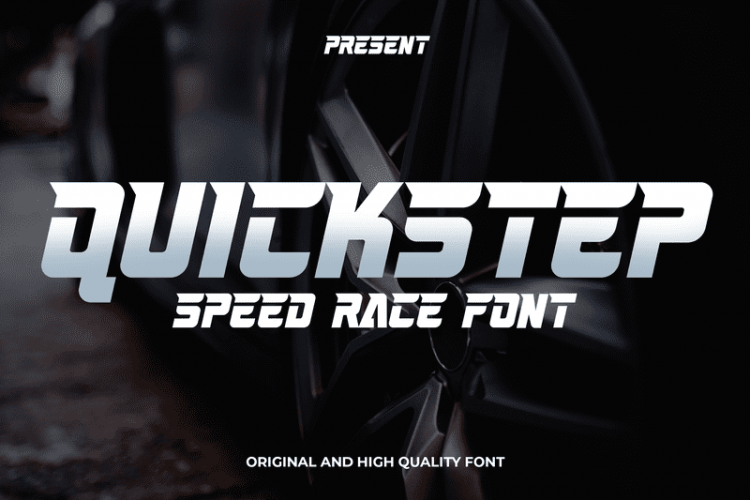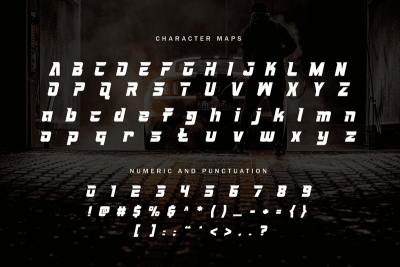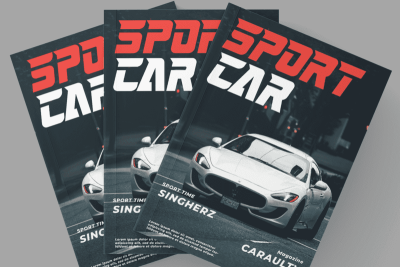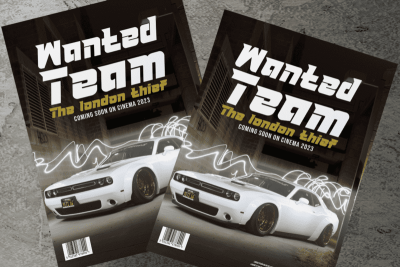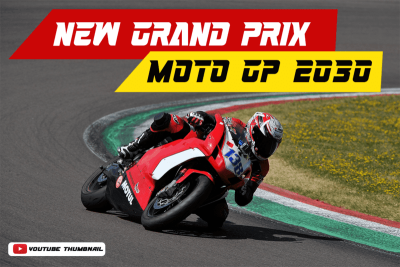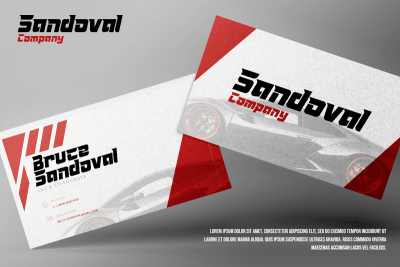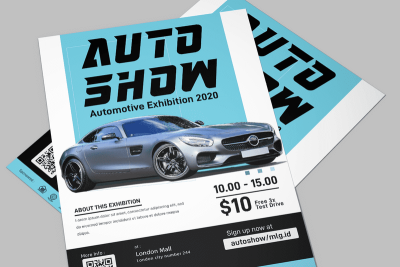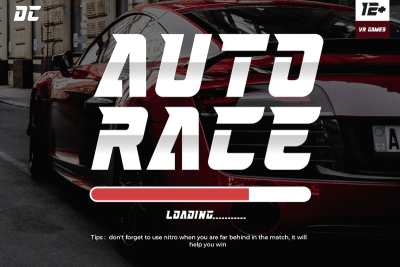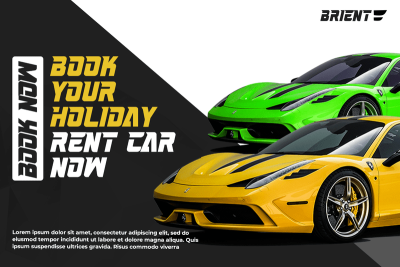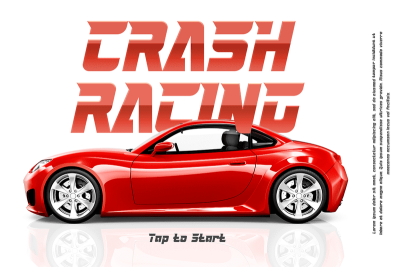
Racing Font Quickstep is a bold and futuristic typeface designed to capture the essence of speed, power, and innovation. With sharp, angular lines and aerodynamic letterforms, this font brings a dynamic and modern vibe to any project. Moreover, its sleek, geometric structure gives the font a commanding presence, ensuring your designs stand out. Inspired by the fast-paced world of racing and technology, Quickstep embodies energy and forward motion.
In addition to its visually striking design, the font offers excellent readability, making it suitable for both headlines and branding elements. Whether youโre creating promotional materials for automotive events, crafting bold merchandise designs, or building a cutting-edge digital interface, Racing Font Quickstep will deliver impactful results. Furthermore, its versatility makes it ideal for both print and digital applications.
The smooth gradient finish adds a futuristic touch, giving your projects a polished and professional appearance. If you’re looking to add speed and sophistication to your creative work, Quickstep is undoubtedly the perfect font for the job.
Racing Font Quickstep Perfect For
Racing Font Quickstep is a must-have for designers, automotive enthusiasts, and creative professionals seeking a high-energy typeface. Its sleek, bold style is especially perfect for projects related to speed, technology, and innovation.
Additionally, this typeface is ideal for:
- Automotive branding and promotional campaigns
- Event flyers and motorsport posters
- Racing-themed merchandise such as apparel and accessories
- Custom car wraps and decals
- Gaming titles, UI design, and futuristic interfaces
- Digital marketing materials for technology companies
Moreover, game developers will appreciate Quickstepโs bold, high-tech aesthetic for crafting attention-grabbing titles and dynamic UI components. Furthermore, content creators in the tech and automotive industries can use this font to build visually compelling assets that captivate audiences.
By incorporating Racing Font Quickstep into your creative projects, you’ll effortlessly communicate energy, speed, and sophistication. Consequently, its modern and futuristic design guarantees your work will leave a lasting impression.